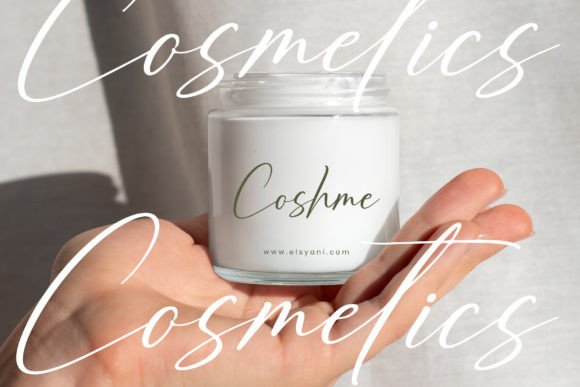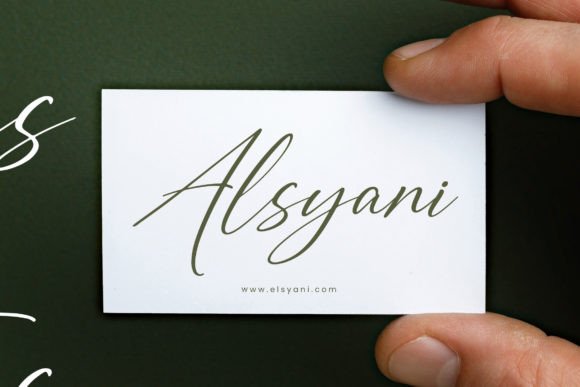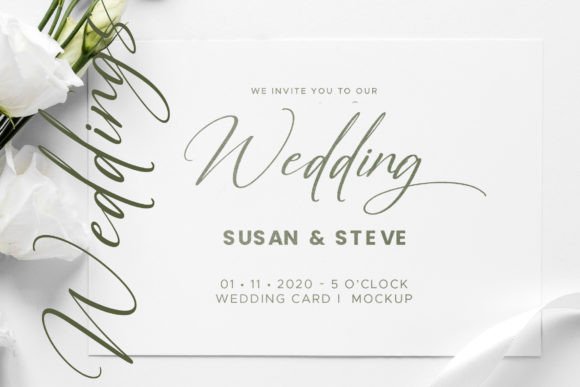
Introduction to Auronifal Meribant Font
Imagine you’re brainstorming ideas for your next creative project, and you stumble upon the perfect script font that elevates your design to the next level. For designers, finding that elusive font can be a game-changer, setting your work apart from the rest and making it truly unforgettable.
That’s where the Auronifal Meribant Font comes in – a luxury script font that’s designed to make your projects shine. With its high-quality design and transparent background, this font is a valuable resource for any designer looking to add a touch of elegance to their work. Whether you’re working on a logo, branding project, or product packaging, the Auronifal Meribant Font is sure to impress.
Key Features of Auronifal Meribant Font
- High-quality design resource ideal for creative projects, offering a unique and sophisticated aesthetic.
- Transparent background, allowing for seamless integration into various design elements and backgrounds.
- Unique characteristics: ornate, elegant, and refined, making it perfect for high-end design projects and creative applications.
Honest Review: Auronifal Meribant Font
I recently had the chance to work with the Auronifal Meribant Font and I must say it’s been a game-changer for my creative projects. ✨ The high quality of this font is truly impressive, with crisp lines and precise details that make it perfect for both digital and print design.
One of the standout features of this font is its transparent background, which allows for seamless integration with any design element. This has been a huge time-saver for me, as I can now focus on the creative aspects of my project without worrying about font compatibility.
- High quality design
- Only available in a limited range of weights
- No extensive character set (e.g. Cyrillic or Asian characters)
Overall, I’m thoroughly impressed with the Auronifal Meribant Font and would highly recommend it to anyone looking for a high-quality design resource for their creative project.
Auronifal Meribant Font
The Auronifal Meribant Font is a high-quality design resource ideal for creative projects. Its transparent background and elegant style make it perfect for various applications.
To get the most out of the Auronifal Meribant Font, use it in combination with other high-quality design resources. Experiment with different font sizes, colors, and styles to create unique and eye-catching designs.
The Auronifal Meribant Font is ideal for various creative projects, including:
- Brochures and flyers
- Posters and banners
- Infographics and presentations
Does the Auronifal Meribant Font have a transparent background?
Yes, the Auronifal Meribant Font features a transparent background, making it ideal for use with various design elements and backgrounds. This allows designers to easily combine the font with other design resources and create visually appealing and cohesive designs.